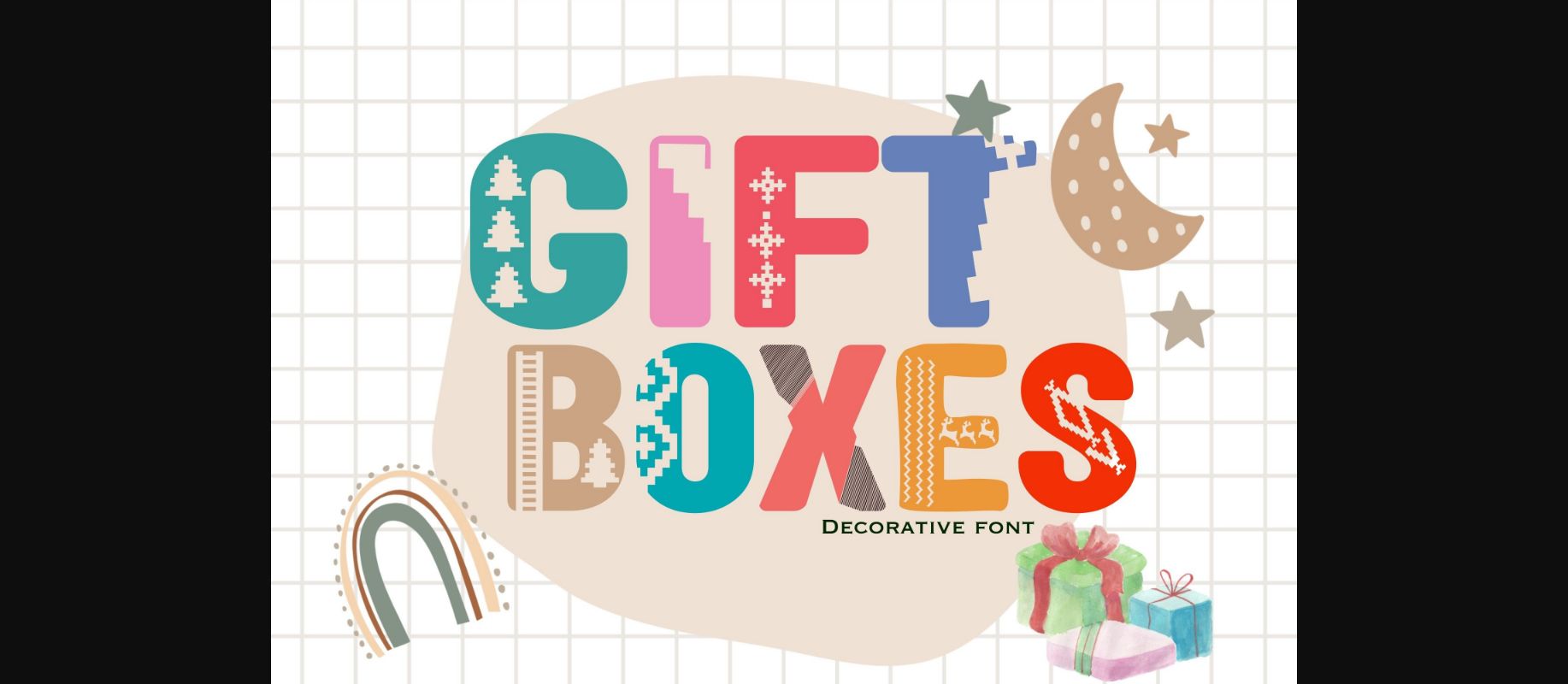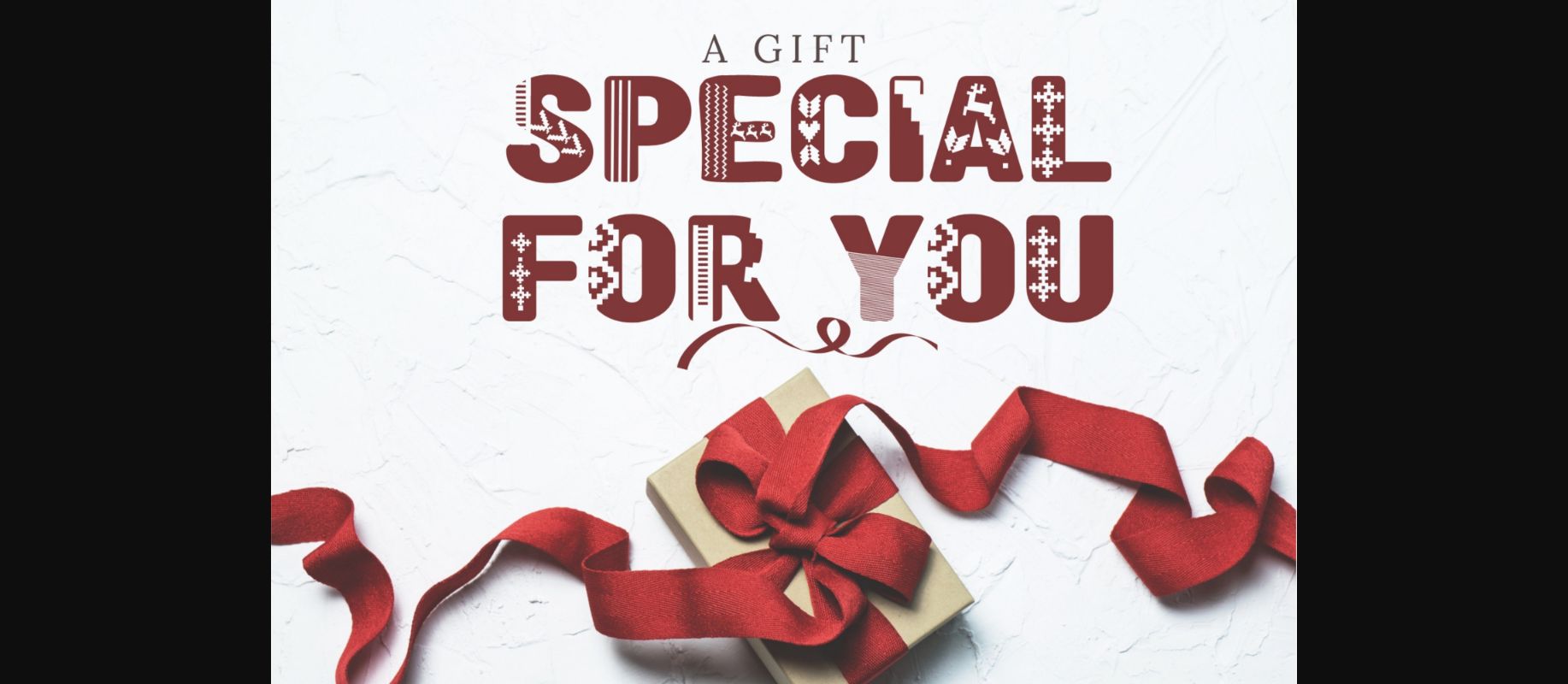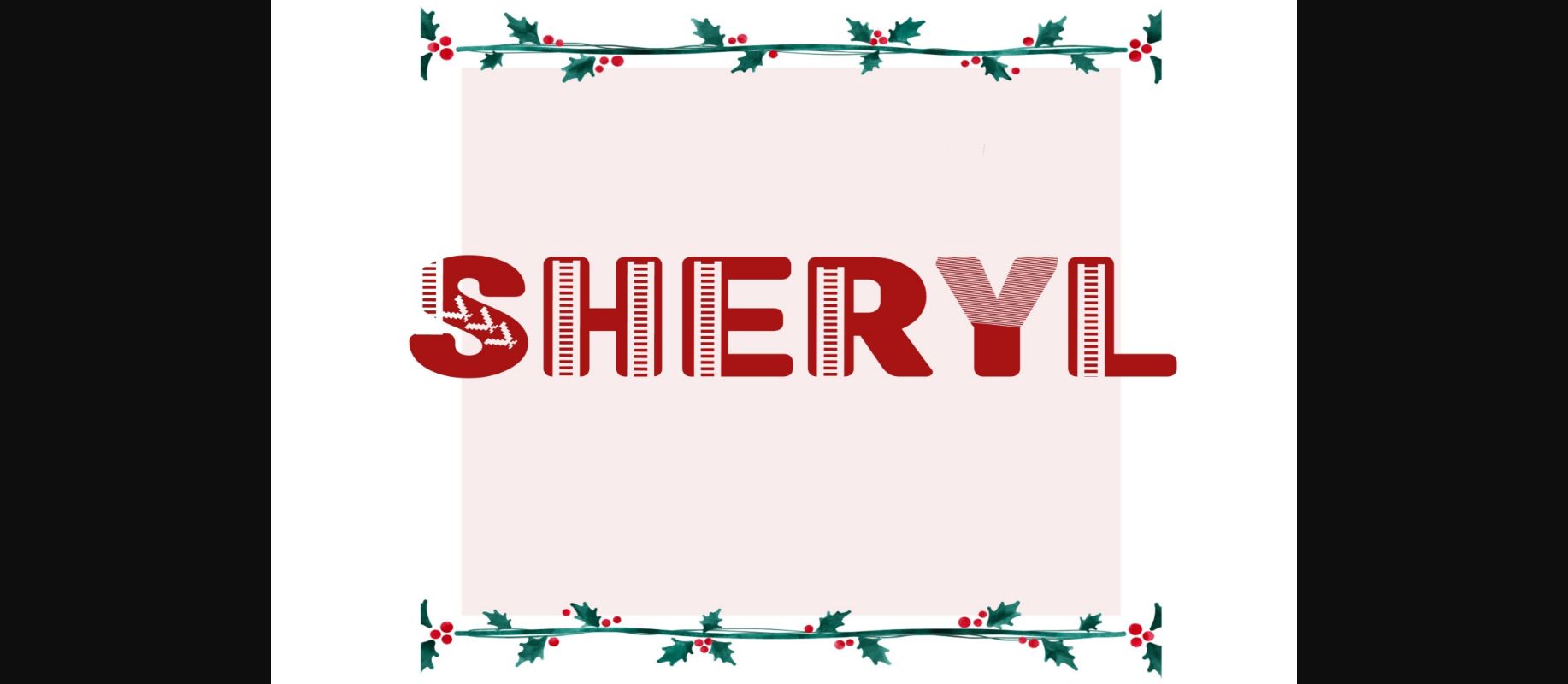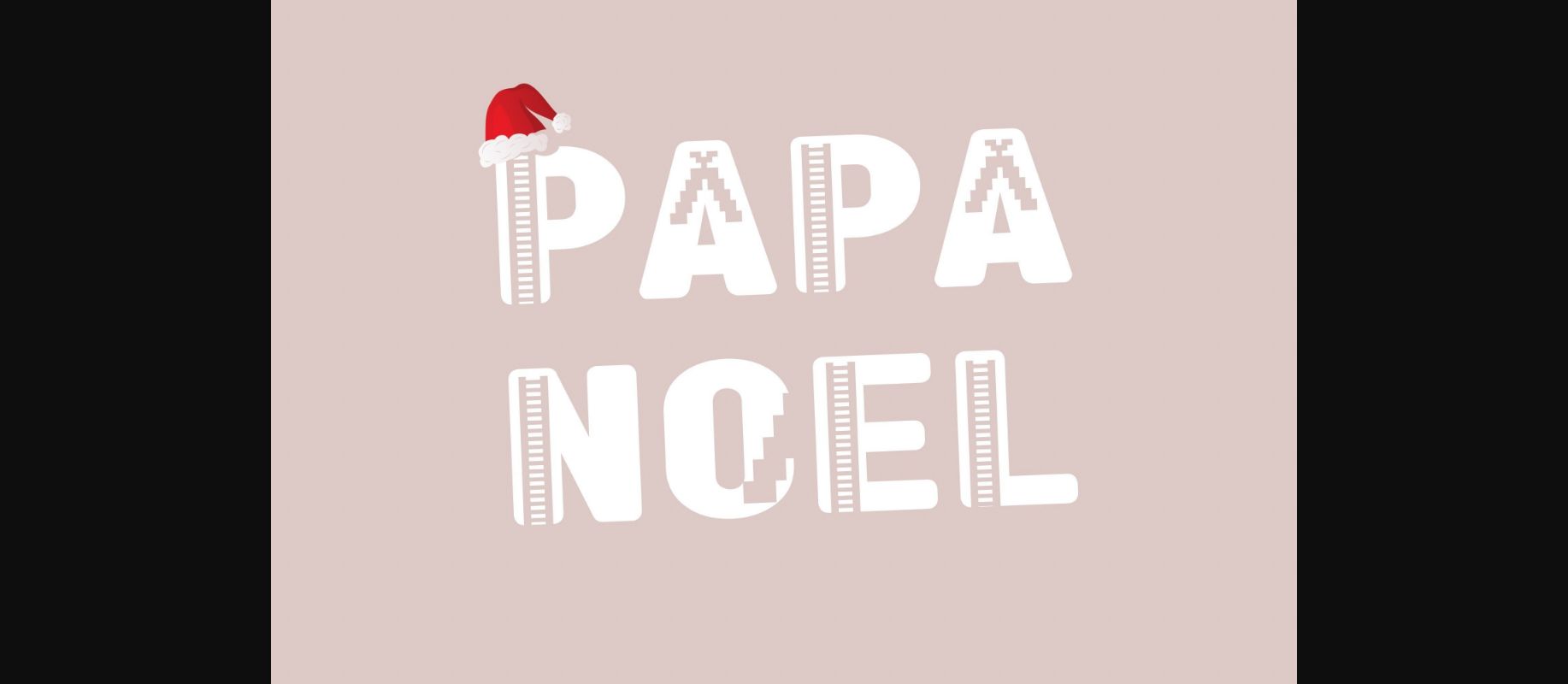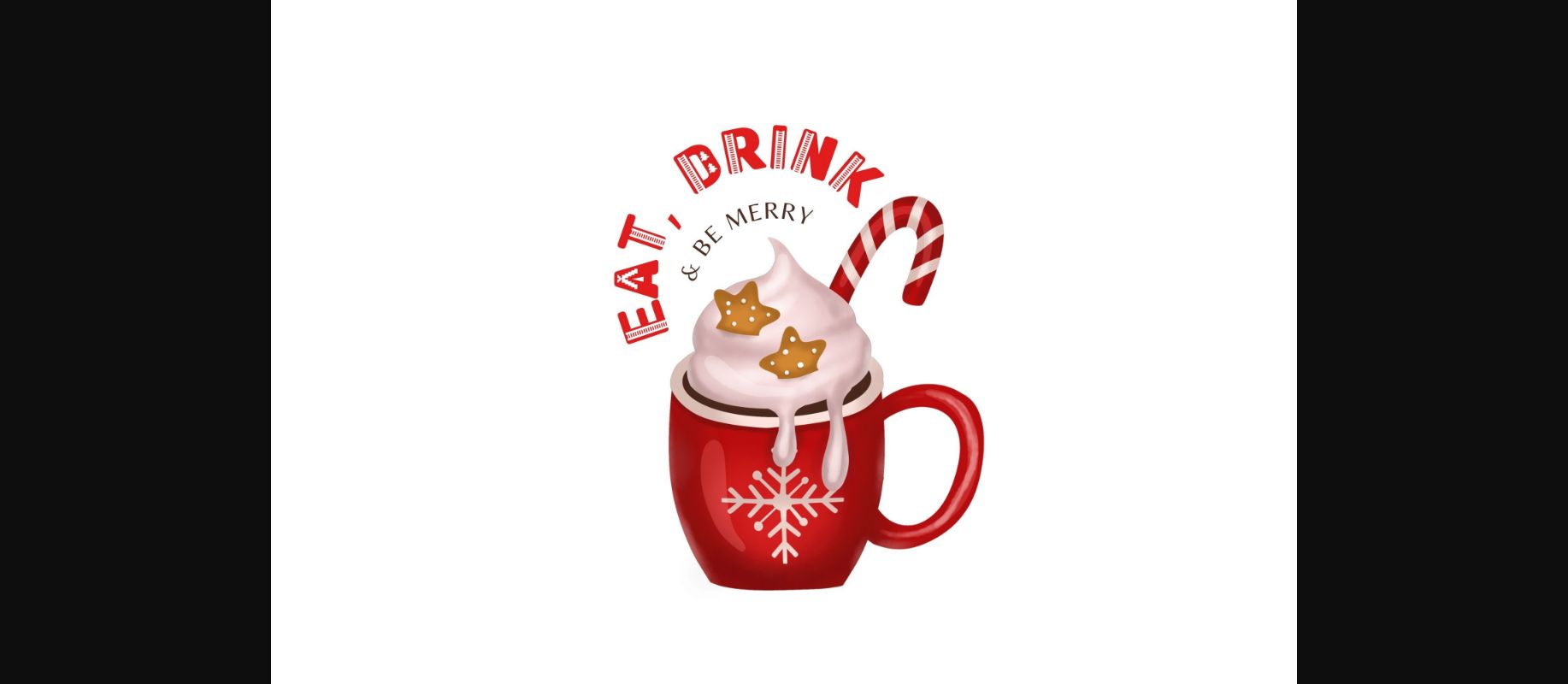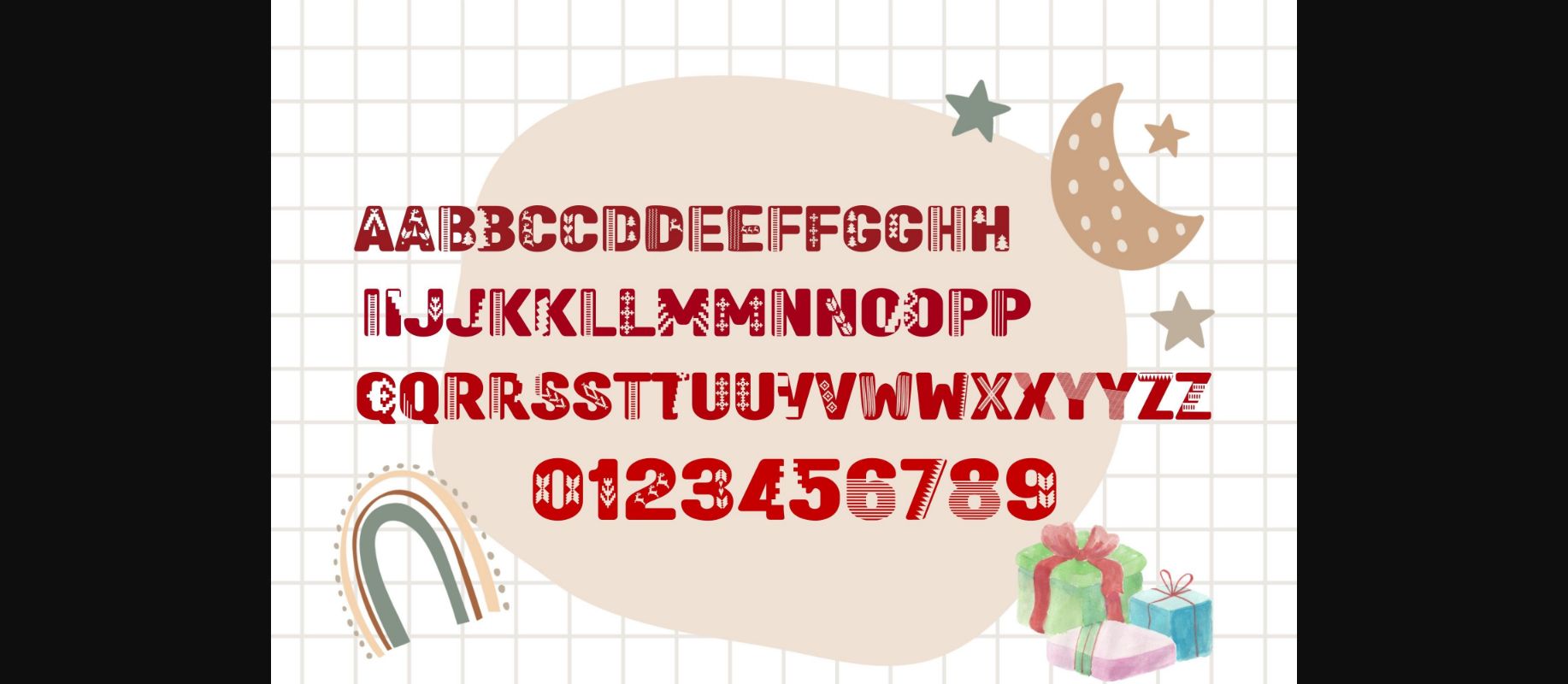
About Gift Boxes Font
Gift Boxes is a lovely decorative font. It’s sweet, adorable, and festive! The typeface is designed to provide a little easy and whimsical Christmas cheer to your life.